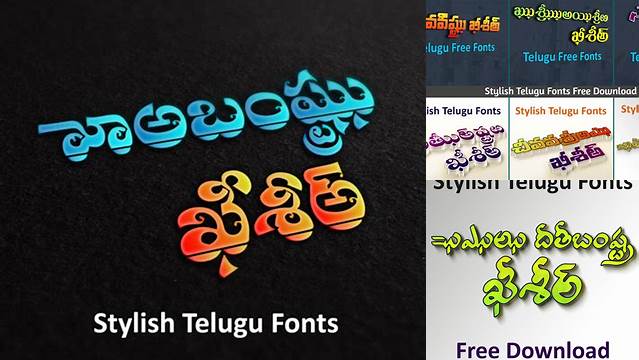
Telugu Handwriting Font Generator: Create Realistic Text
Are you looking to add a personal touch to your designs, projects, or social media posts? A Telugu handwriting fonts generator can be your best friend! These amazing tools allow you to create text that looks like it was handwritten, bringing warmth and authenticity to your digital creations. In this article, we will explore the world of Telugu handwriting fonts generators, their benefits, and how you can use them to elevate your content. We'll delve into the features of these generators, discuss the importance of choosing the right font, and even provide you with some tips on how to create the most realistic handwritten text possible. So, let's dive in and discover the magic of Telugu handwriting fonts!
What is a Telugu Handwriting Fonts Generator?
Okay, guys, let's break down what a Telugu handwriting fonts generator actually is. Basically, it's a nifty online tool or software that converts regular digital text into fonts that mimic the beautiful strokes of Telugu handwriting. Instead of the typical computer-generated fonts that can sometimes feel a bit cold and impersonal, these generators produce text that has that lovely, human touch. Think about it – you can create invitations, social media graphics, or even personalized messages that look like they were penned by hand! These generators are super versatile and come in handy for a bunch of different applications. The key is that they bridge the gap between digital precision and the organic feel of handwriting, making your text stand out and connect with your audience on a more personal level. You might be wondering, why use a handwriting font in the first place? Well, the answer is simple: it adds character and warmth. In a world flooded with standardized fonts, a touch of handwriting can make your content feel unique, inviting, and relatable. Imagine sending out wedding invites with a font that looks handwritten – it instantly feels more intimate and special than a generic font. Similarly, on social media, using a Telugu handwriting font can help your posts grab attention and resonate with your followers on a deeper level. The beauty of these generators lies in their ability to capture the nuances of handwriting – the slight variations in stroke thickness, the subtle imperfections, and the overall flow of the letters. This creates an illusion of authenticity that can be incredibly powerful in conveying your message. Whether you're a designer, a marketer, a student, or just someone who loves adding a personal touch to their work, a Telugu handwriting font generator can be an invaluable tool in your creative arsenal. So, let's move on and explore why these generators are so darn useful.
Why Use a Telugu Handwriting Fonts Generator?
So, why should you even bother using a Telugu handwriting fonts generator? Let's get into the nitty-gritty of the amazing benefits they offer. First off, the big one: they add a personal touch. In a world of cookie-cutter designs and digital overload, a handwritten font can make your content stand out from the crowd. It injects warmth, authenticity, and a sense of connection that standard fonts often miss. Think about it – a handwritten note feels way more special than a typed-out email, right? The same principle applies to digital design. Secondly, they are incredibly versatile. Whether you're whipping up wedding invitations, designing social media graphics, creating personalized greeting cards, or even jazzing up your website, a Telugu handwriting font can be the perfect choice. They adapt beautifully to a wide range of projects and styles, adding a unique flair to each. Forget struggling with calligraphy pens and messy ink – these generators do all the heavy lifting for you. They save you tons of time and effort, allowing you to focus on the creative aspects of your project. Plus, you can experiment with different fonts and styles without having to rewrite everything by hand. This is a game-changer for anyone with a deadline to meet or a desire to try out various options. One of the biggest advantages is the ability to create a unique brand identity. In today's competitive market, standing out is crucial. A distinctive handwriting font can become a key element of your brand's visual identity, making your materials instantly recognizable. Imagine your logo, website, and marketing materials all featuring a consistent, elegant handwriting font – it creates a cohesive and memorable brand image. And let's not forget about accessibility. Not everyone has the neatest handwriting, and even those who do might not have the time to write out everything by hand. These generators level the playing field, allowing anyone to create beautiful, handwritten-style text regardless of their penmanship skills. Finally, emotional connection is a major factor. Handwriting evokes feelings of nostalgia, intimacy, and care. By using a Telugu handwriting font, you can tap into these emotions and create content that resonates with your audience on a deeper level. Whether it's a heartfelt message, a warm invitation, or a captivating advertisement, the personal touch of handwriting can make all the difference. So, yeah, using a Telugu handwriting fonts generator is a pretty smart move. It's all about adding that human element to your digital world and making your content truly shine.
Features to Look For in a Telugu Handwriting Fonts Generator
Alright, so you're convinced a Telugu handwriting fonts generator is the way to go. Awesome! But hold your horses – not all generators are created equal. To make sure you're getting the most bang for your buck (or your time!), let's talk about the key features you should be looking for. First and foremost, variety of fonts is crucial. You want a generator that offers a wide range of styles, from elegant and flowing scripts to more playful and casual fonts. This gives you the flexibility to choose the perfect font for each project, whether it's a formal invitation or a fun social media post. Look for generators that provide previews of each font, so you can see exactly how your text will look before you commit. The ability to customize your text is another must-have feature. This includes options like adjusting the font size, color, and spacing between letters and lines. Some generators even allow you to tweak the thickness and slant of the letters, giving you even more control over the final result. The more customization options, the better you can fine-tune the font to match your specific needs. Ease of use is a big one, especially if you're not a design whiz. The best generators have a user-friendly interface that's easy to navigate, even for beginners. You should be able to input your text, choose a font, and customize it with minimal fuss. If the generator is clunky or confusing, you're likely to get frustrated and give up. A good generator should offer high-resolution output. You want your handwritten text to look crisp and clear, whether you're using it for print or digital media. Look for generators that allow you to download your text in various formats, such as PNG or SVG, which are ideal for high-quality graphics. Some generators also offer advanced features like ligatures and swashes. Ligatures are special characters that combine two or more letters into a single glyph, adding a touch of elegance and authenticity to the handwriting. Swashes are decorative flourishes that extend from certain letters, giving the font a more fluid and artistic look. These features can really elevate your text and make it look even more realistic. And finally, consider the pricing model. Some generators are free to use, while others offer premium features for a subscription fee. Think about your budget and your needs, and choose a generator that offers the best value for your money. If you only need to generate handwritten text occasionally, a free generator might suffice. But if you plan to use it frequently or require advanced features, a paid subscription might be worth the investment. So, keep these features in mind when you're shopping around for a Telugu handwriting fonts generator. With the right tool, you'll be creating stunning handwritten text in no time!
How to Choose the Right Telugu Handwriting Font
Okay, so you've got your Telugu handwriting fonts generator ready to roll, but now comes the crucial part: picking the perfect font! It's not just about finding one that looks pretty – it's about choosing a font that fits your project and conveys the right message. Let's break down the key factors to consider. First, think about the overall tone and style of your project. Are you creating a formal invitation, a casual social media post, or a professional business document? The font you choose should align with the tone you're aiming for. For example, a flowing, elegant script might be perfect for a wedding invitation, while a bolder, more playful font could be a better fit for a children's book. The trick is to match the font's personality to your project's vibe. Readability is another huge factor. Sure, some fonts look absolutely gorgeous, but if they're difficult to read, they're not going to be very effective. Choose a font that's clear and legible, even at smaller sizes. Consider the spacing between letters and words, and make sure the strokes aren't too thin or too thick. Remember, the goal is to communicate your message effectively, so prioritize readability above all else. Target audience matters too. Who are you trying to reach with your message? If you're targeting a younger audience, you might opt for a more modern and trendy font. If you're catering to a more mature audience, a classic and timeless font might be a better choice. Think about the demographics and preferences of your target audience, and select a font that will resonate with them. Don't forget about context. Where will your handwritten text be used? If it's going to be printed on paper, you'll need to consider factors like paper type and ink color. If it's going to be displayed on a screen, you'll need to make sure it looks good on different devices and screen resolutions. The context in which your text will be viewed can influence your font choice, so keep this in mind. Consistency is key if you're using the font for branding purposes. If you're creating a logo or other branding materials, you'll want to choose a font that you can use consistently across all your materials. This will help create a cohesive brand identity and make your brand more recognizable. And finally, don't be afraid to experiment. Try out different fonts and see what works best for your project. Most Telugu handwriting fonts generators offer previews, so you can get a sense of how your text will look before you commit. Play around with different sizes, colors, and styles until you find the perfect font for your needs. Choosing the right Telugu handwriting font is a bit like choosing the right outfit – it's all about finding something that fits the occasion, makes you feel confident, and represents your personal style. So, take your time, have fun, and trust your instincts!
Tips for Creating Realistic Handwritten Text
Okay, guys, let's talk about taking your Telugu handwriting fonts to the next level! You've got your generator, you've picked a killer font, but how do you make your text look really handwritten, like it just flowed from a pen onto paper? Here are some insider tips to create truly realistic results. First off, vary the font size slightly. Real handwriting isn't perfectly uniform. Letters and words naturally vary a bit in size. So, within your generator or design software, make subtle adjustments to the font size for certain words or even individual letters. This tiny detail can make a world of difference in authenticity. Next, play with letter spacing (kerning) and line height (leading). Just like font size, spacing in handwriting isn't always consistent. Increase or decrease the space between certain letters or words to mimic the natural flow of handwriting. Similarly, adjust the line height to create a more organic feel. Slight variations here can break up the rigidness of digital text and add a handwritten touch. Introduce subtle imperfections. No one's handwriting is flawless, and that's part of its charm. Look for ways to add slight irregularities to your text. Some generators might offer options for adding texture or noise to the font. You can also use photo editing software to manually add tiny smudges, ink splatters, or variations in stroke thickness. These imperfections are what make handwriting feel human and real. Use ligatures and swashes wisely. As we mentioned earlier, ligatures (connected letters) and swashes (decorative strokes) can add elegance to your text. However, overuse them, and your text can start to look overly stylized and less natural. Use them sparingly and strategically, focusing on key words or phrases where they'll have the most impact. Another awesome trick is to add a slight slant or angle to your text. Most people's handwriting has a natural slant, either to the left or the right. Mimic this by tilting your text slightly in your generator or design software. This subtle slant can make a big difference in the overall realism of your handwritten effect. Think about varying stroke thickness. Real handwriting has variations in line weight, where some strokes are thicker than others. You can try to mimic this effect by layering slightly different versions of the same font or by manually adjusting the stroke thickness in a design program. Focus on areas where you'd naturally apply more pressure with a pen, like the downstrokes of letters. And finally, don't be afraid to mix and match fonts. Sometimes, the most realistic handwritten effect comes from combining different fonts. Try using a slightly different font for headings or emphasizing certain words. This can add visual interest and create a more dynamic, handwritten look. By incorporating these tips, you can take your Telugu handwriting fonts from looking good to looking absolutely authentic. It's all about paying attention to the little details and mimicking the natural variations and imperfections of real handwriting. So go ahead, experiment, and let your creativity flow!
So, there you have it, folks! We've journeyed through the wonderful world of Telugu handwriting fonts generators, exploring their benefits, key features, how to choose the right font, and even some sneaky tips for creating super realistic text. Hopefully, you're now armed with the knowledge and inspiration to add a personal touch to your projects. Remember, these generators are more than just tools – they're a way to infuse your digital creations with warmth, authenticity, and a human connection. Whether you're designing invitations, crafting social media posts, or building a brand identity, a well-chosen Telugu handwriting font can make all the difference. Don't be afraid to experiment, have fun, and let your creativity shine through. Happy writing (or should we say, generating)!